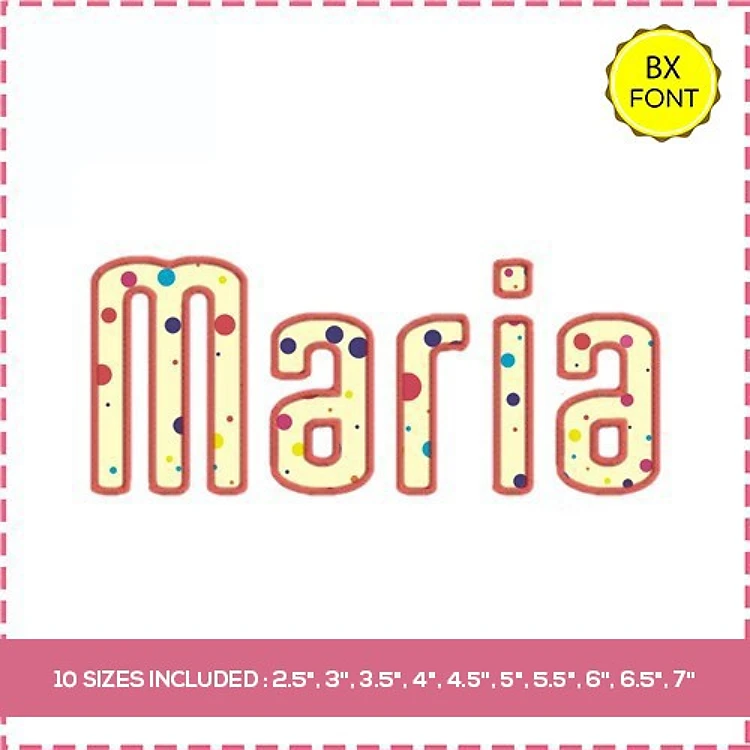
Maya Kreations is happy to present Maria Font Embroidery Font - Playful Outline Design - 10 Sizes Included - BX font machine embroidery font which has Playful decorative outline embroidery font with colorful speckled letters, ideal for vibrant designs on children's apparel and accessories. Available in BX font and Embrilliance formats, with 10 size options from 2.5 to 7. included. If you would like to view more embroidery fonts and alphabets please search our embroidery fonts page.
Maria Font Embroidery Font - Playful Outline Design - 10 Sizes Included - BX font